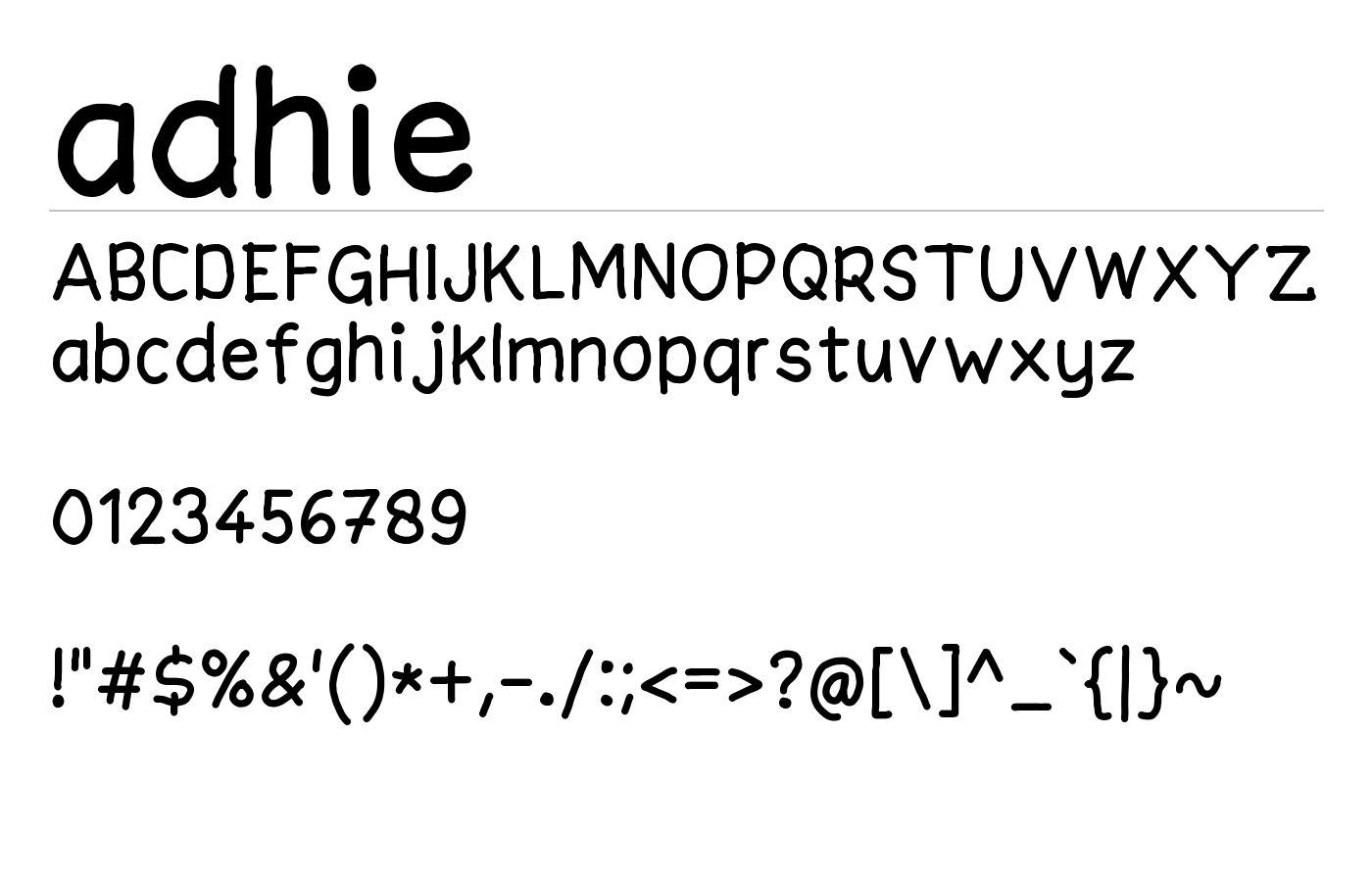
Adhie Font is a playful and informal sans serif typeface with a hand-drawn, slightly irregular style that feels friendly and approachable. Its medium weight and rounded, uneven strokes give it a casual, whimsical character perfect for creative projects, children's content, and anything that benefits from a warm, personal touch. This font works well in headlines, logos, and packaging where a fun, relaxed vibe is desired.
adhie Font
About adhie Font